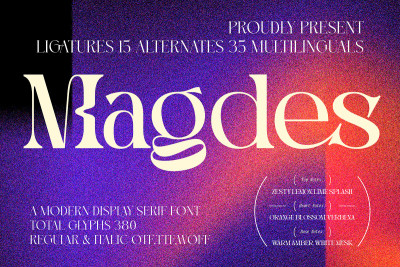
Magdes Modern Display Serif Font
Magdes Modern Display Serif stands out as a reliable typeface choice for designers seeking clarity without sacrificing character.